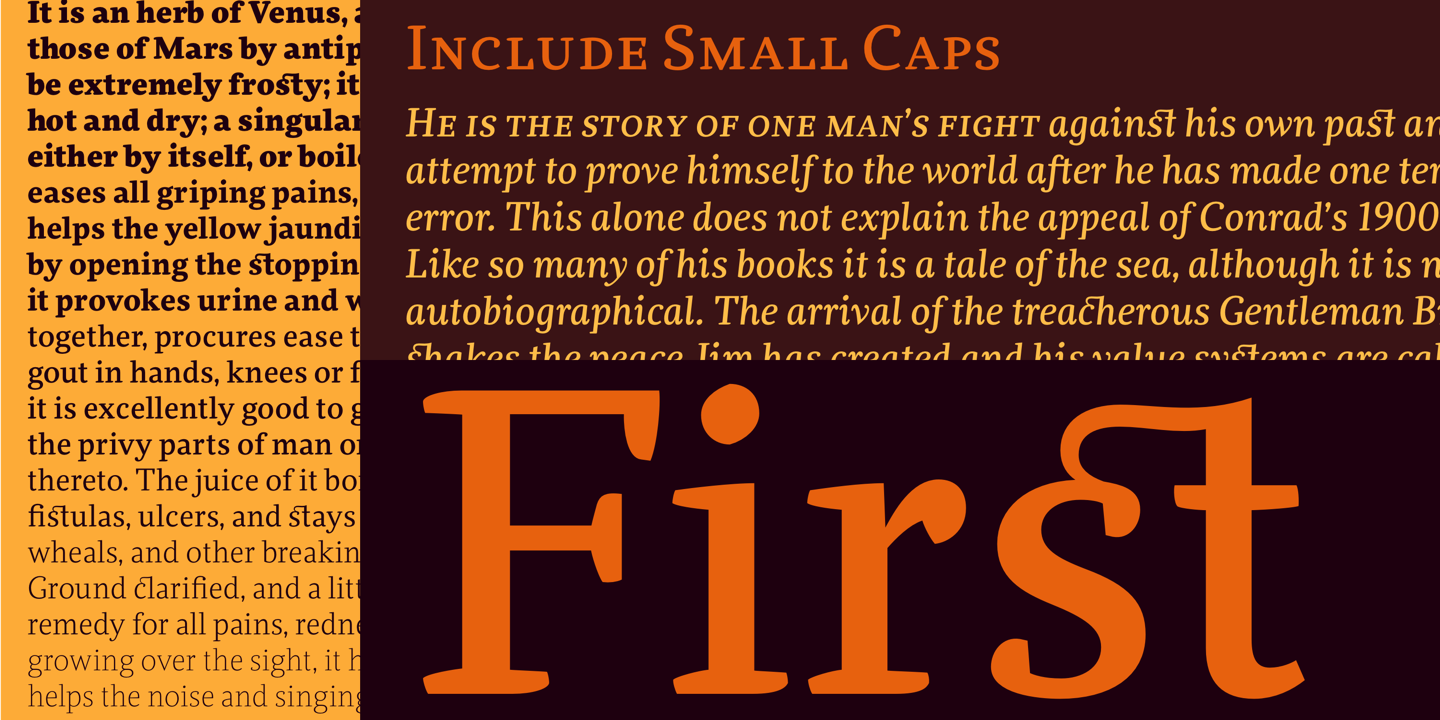
Clavo is the third font family from Warsaw’s Dada Studio. Its approach to the contemporary oldstyle genre is somewhat similar to Ludwig Übele’s Marat or Elena Albertoni’s Acuta (while being in no way an imitation). With its distinctive shapes, pronounced serifs and marked transitions, it has an animated energy about it that makes it stand out at display sizes. When used in smaller texts, Clavo is attractive and flexible, with proportions that are easy on the eye and help immersive reading. It comes in ten weights with matching italics, carefully adjusted for optical harmony. With a large set of numerals, small capitals, fractions and other OpenType goodies, it’s a bargain at its full price… and almost too good to be true at its current 90% discount, valid through July 28, 2013!